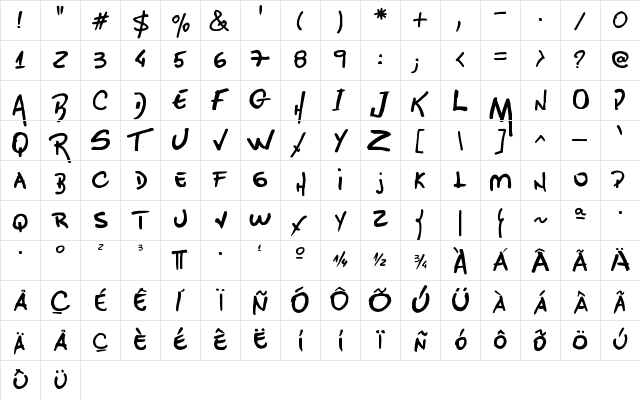
Cadeso Regular
Design Context for Cadeso Typeface
Cadeso is a composed and adaptable typeface that performs quietly and consistently across a wide range of design contexts.